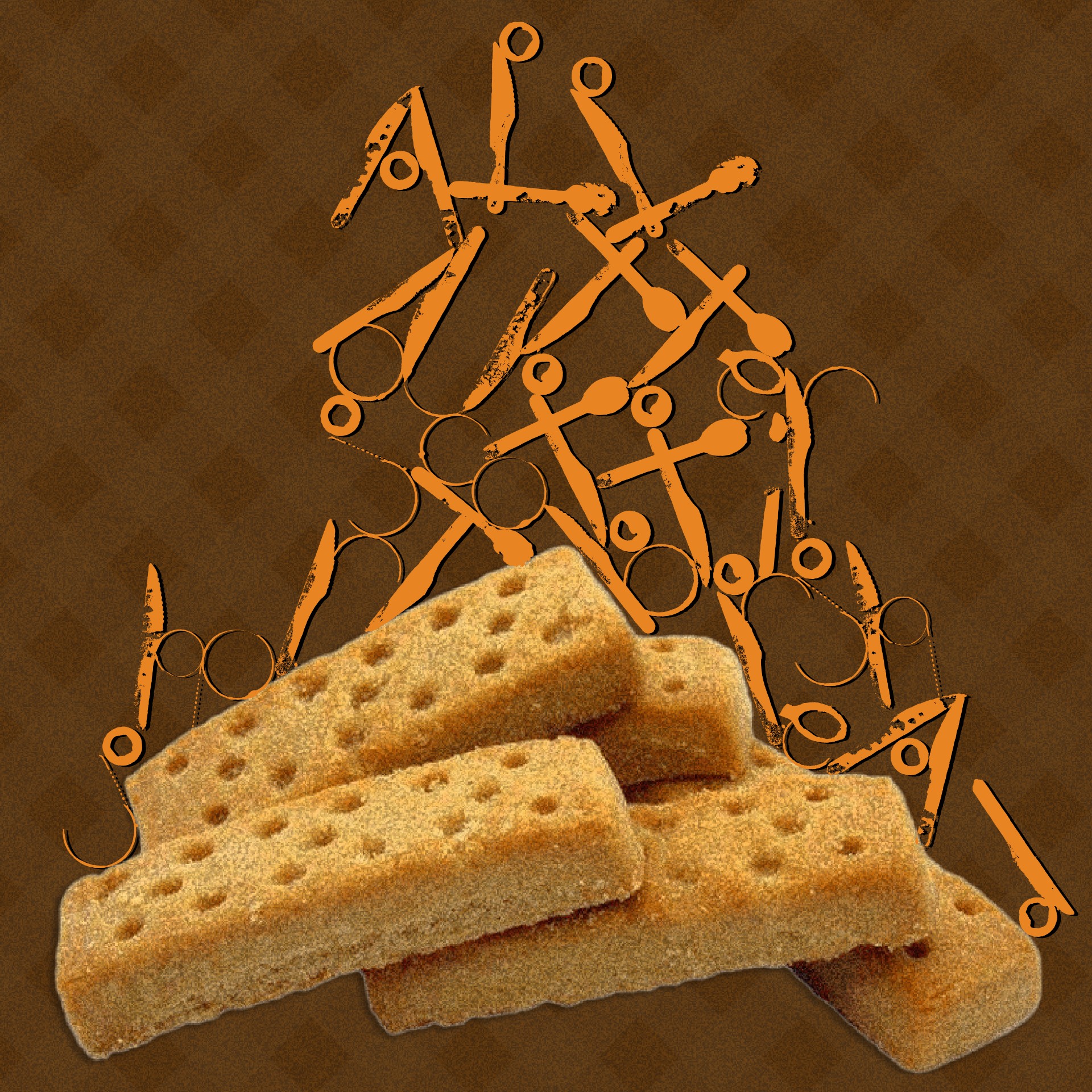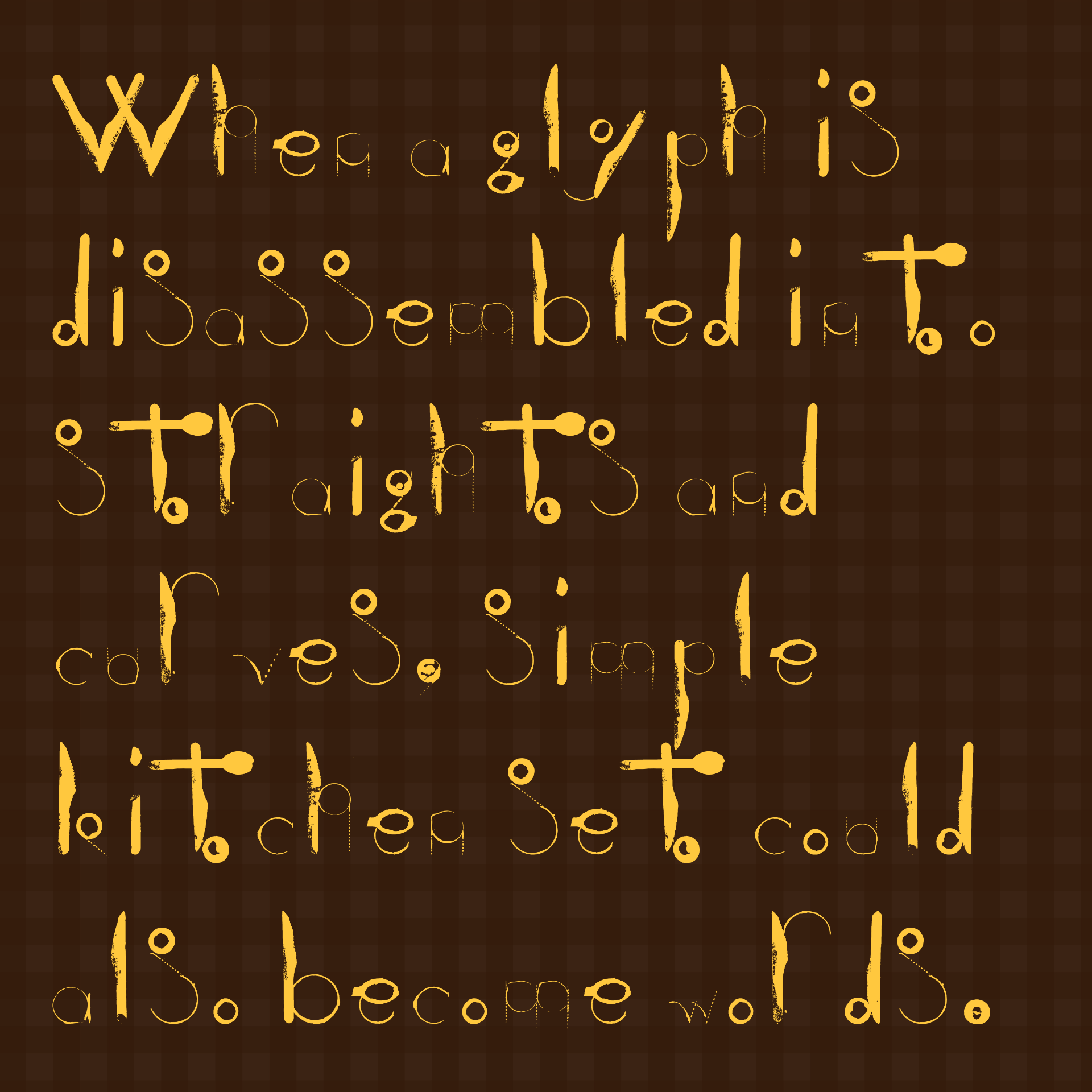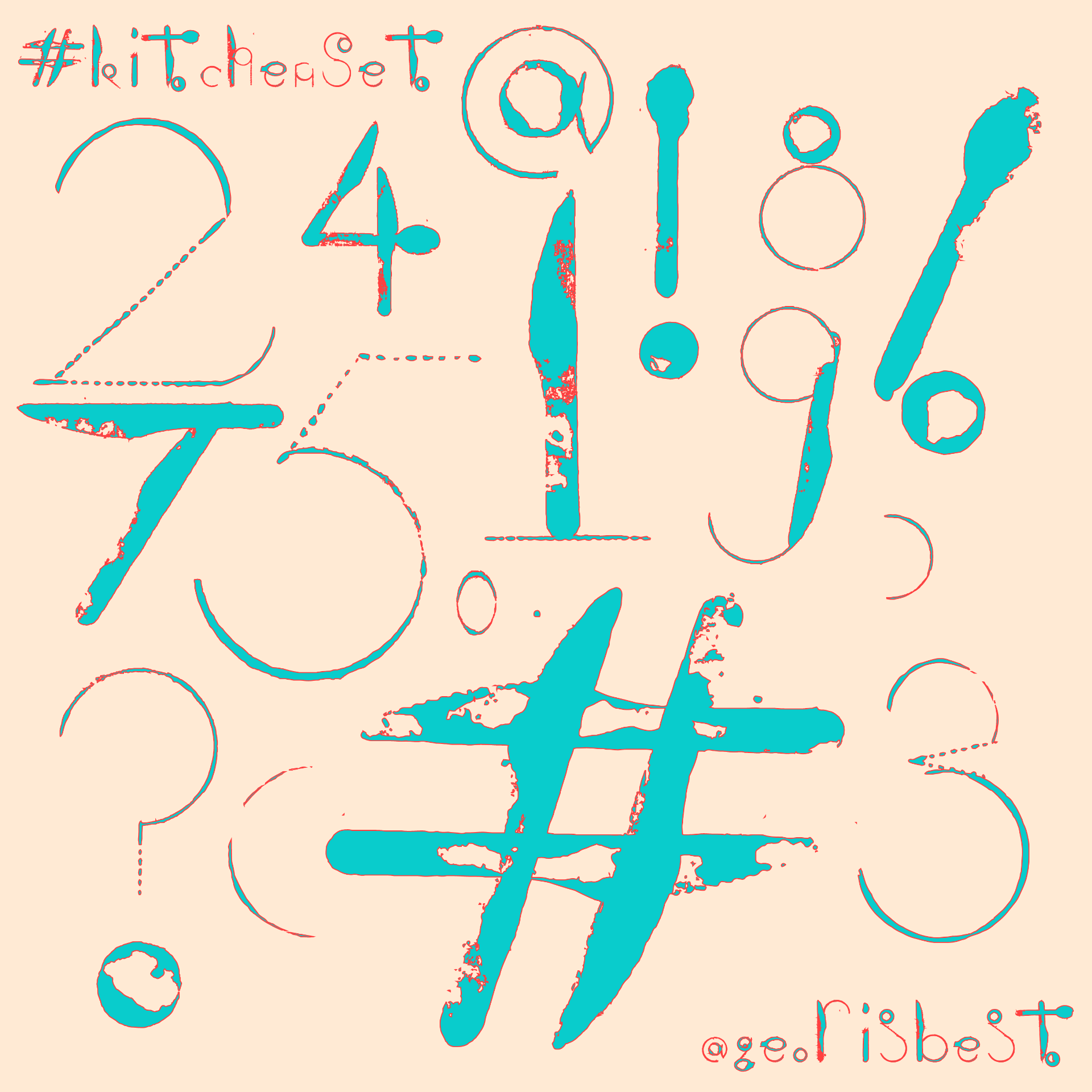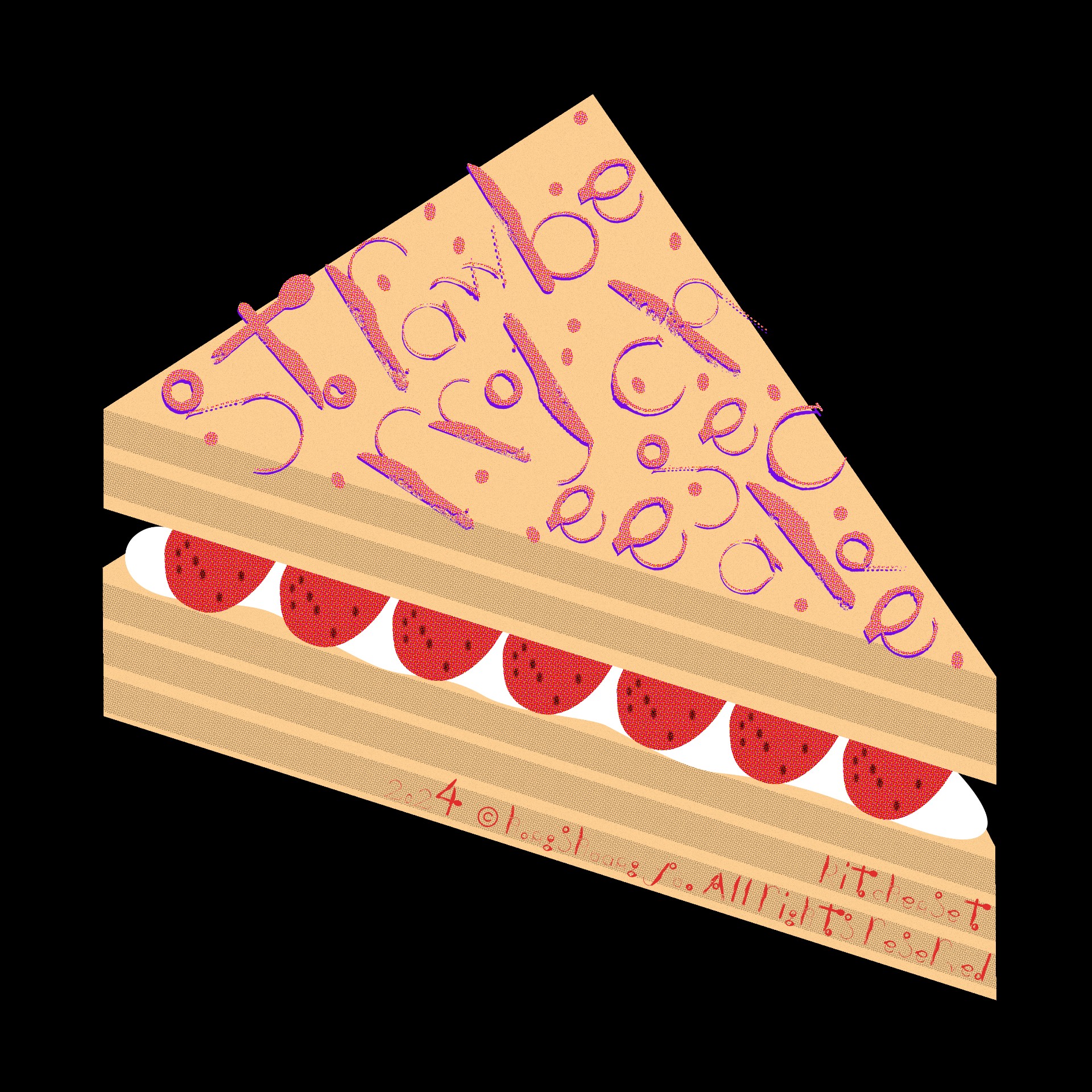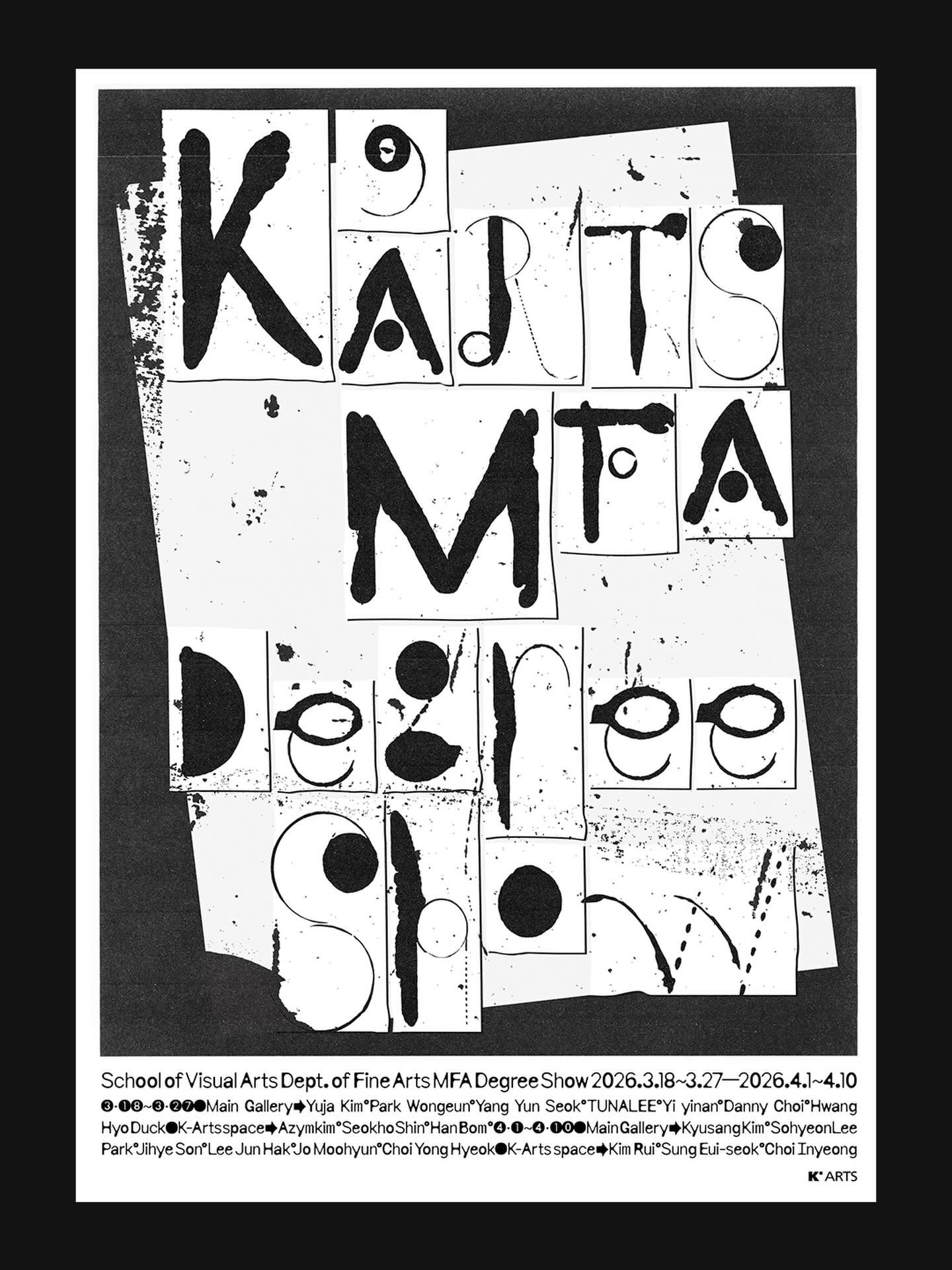
kitchenSet
By Hongshuang Fu
KitchenSet was born on a kitchen table in winter 2022. It is a playful utensil-based typeface made with disposable forks, knives, and glass rims. It follows no rules except those of kitchen tools, and the creator’s heart. So make yourself a cup of tea, grab a biscuit or two, and come play with KitchenSet alongside Hongshuang! :)